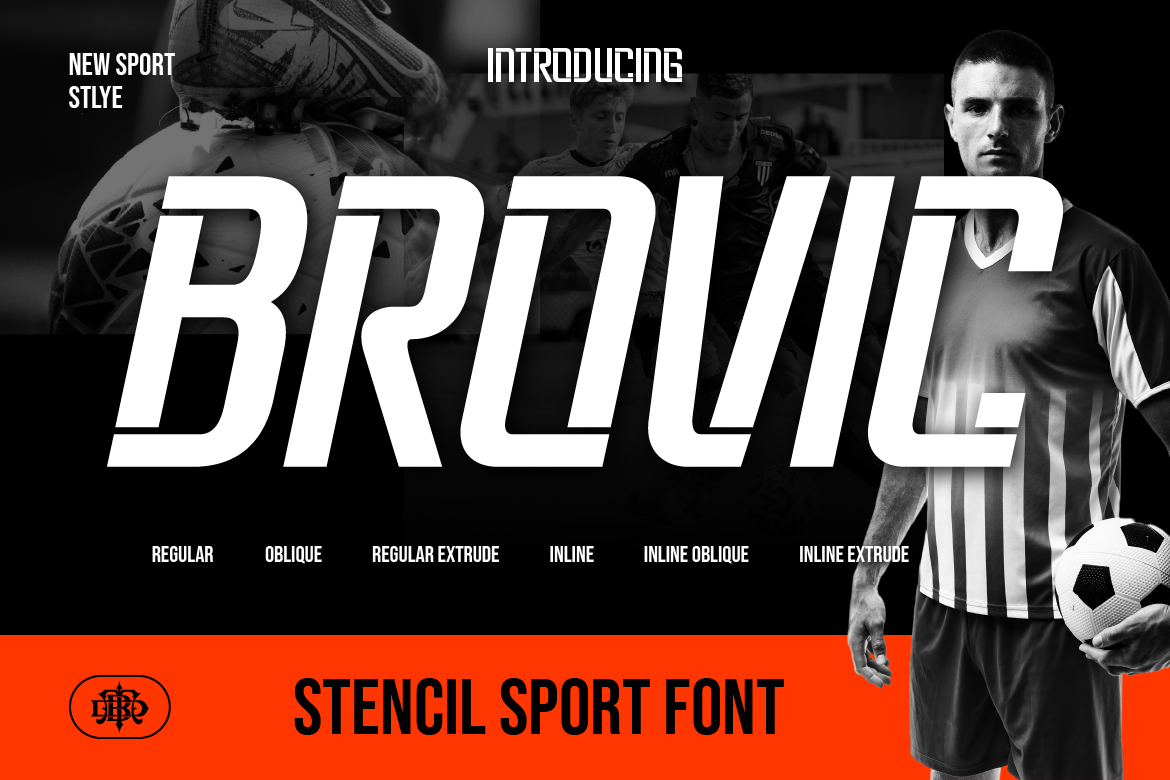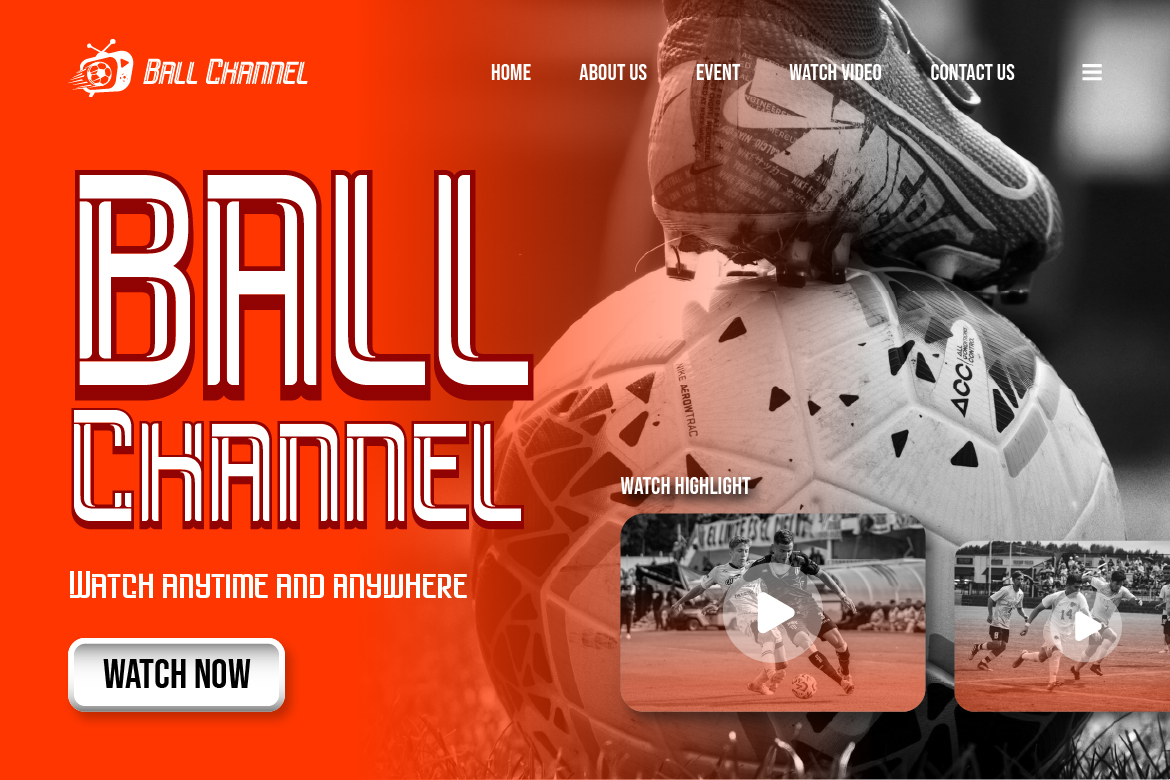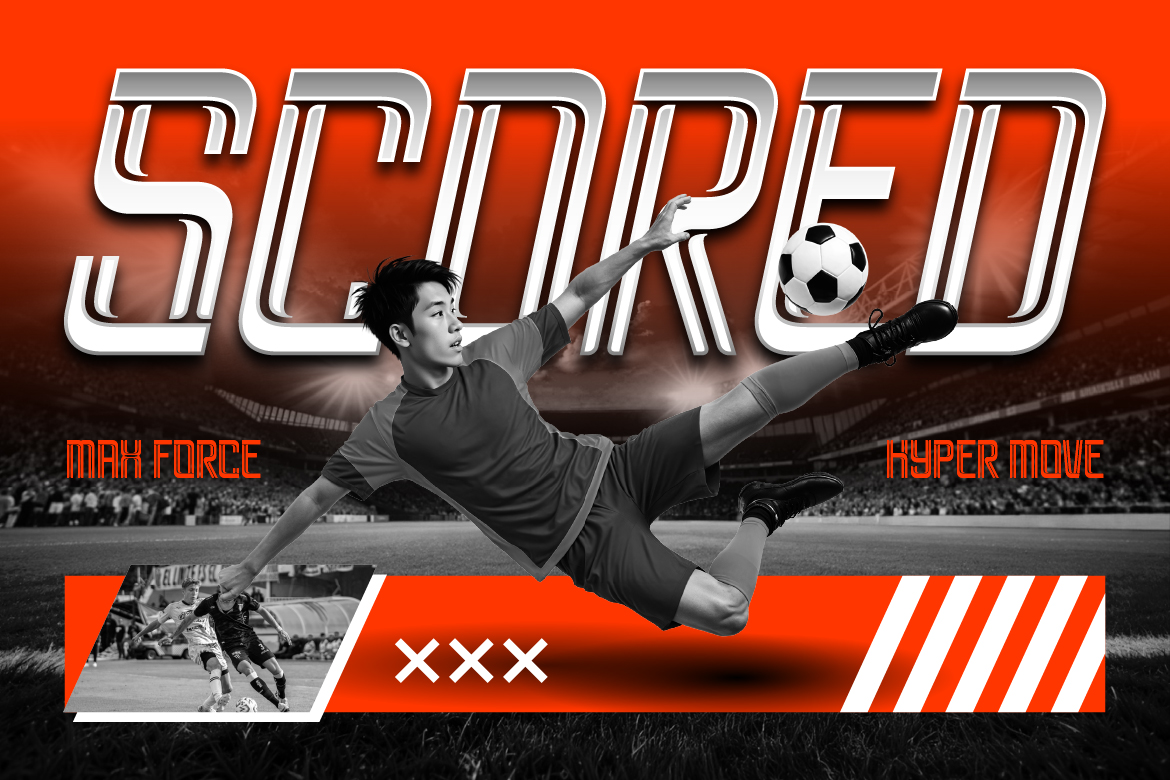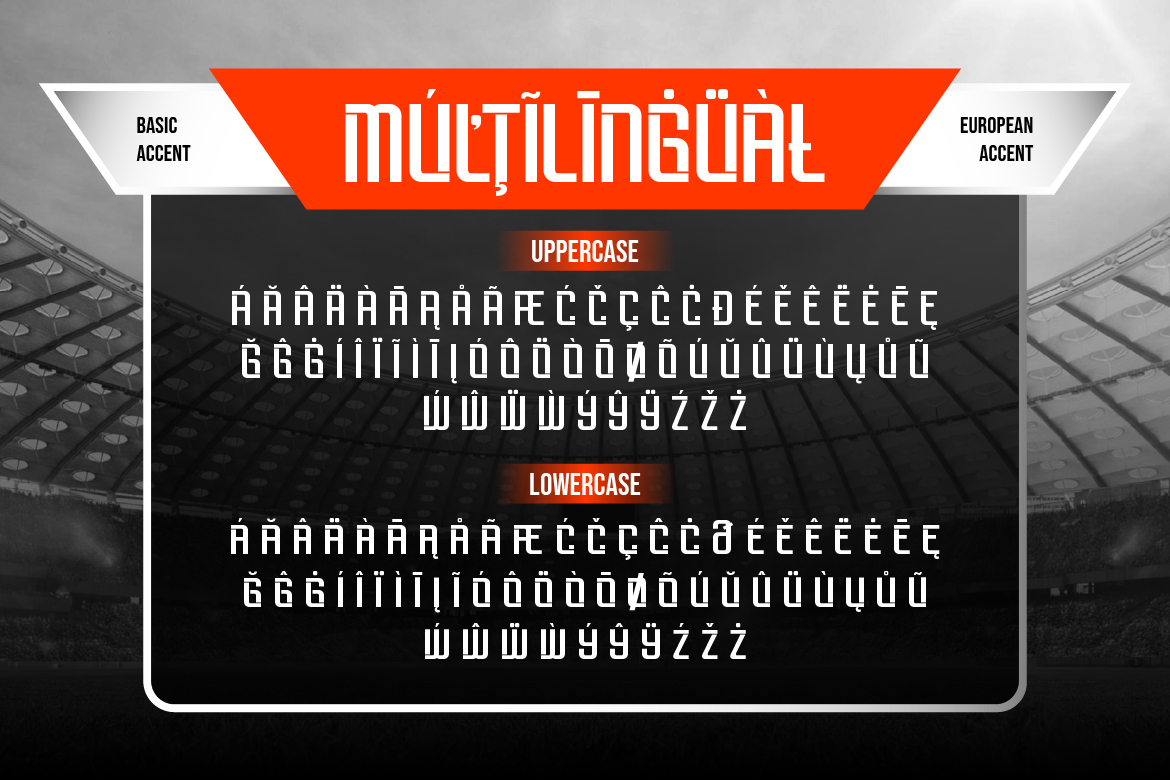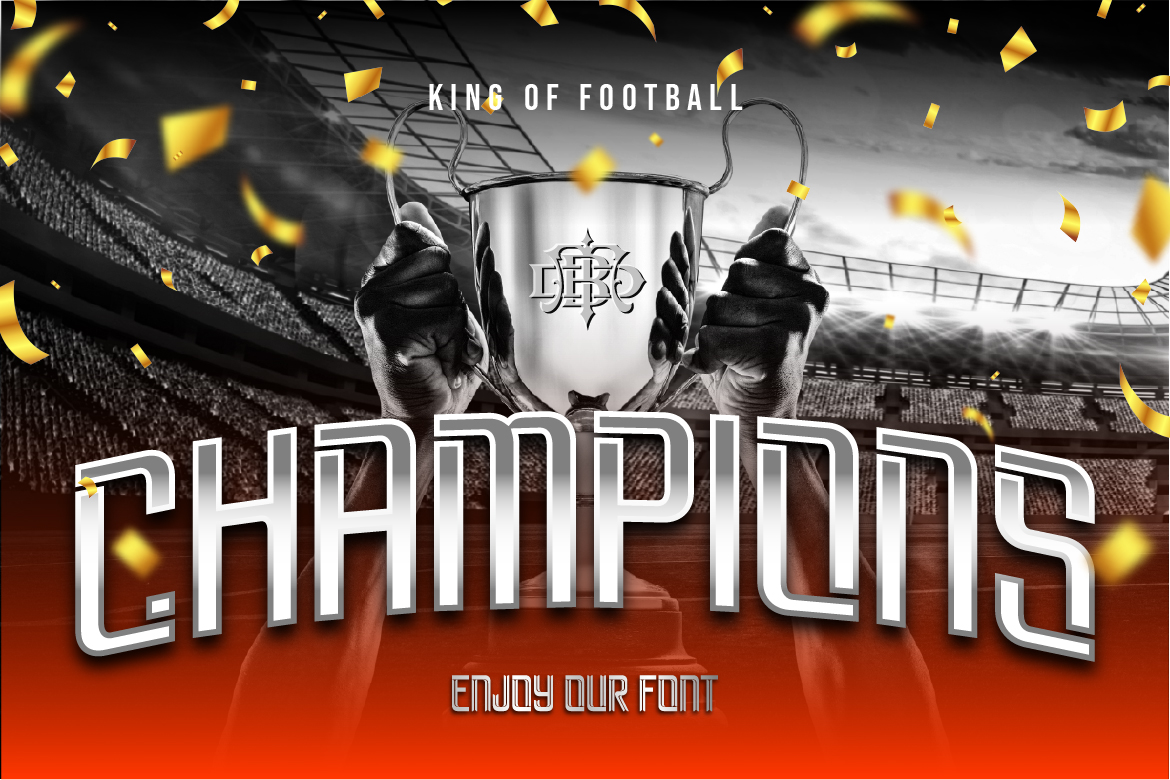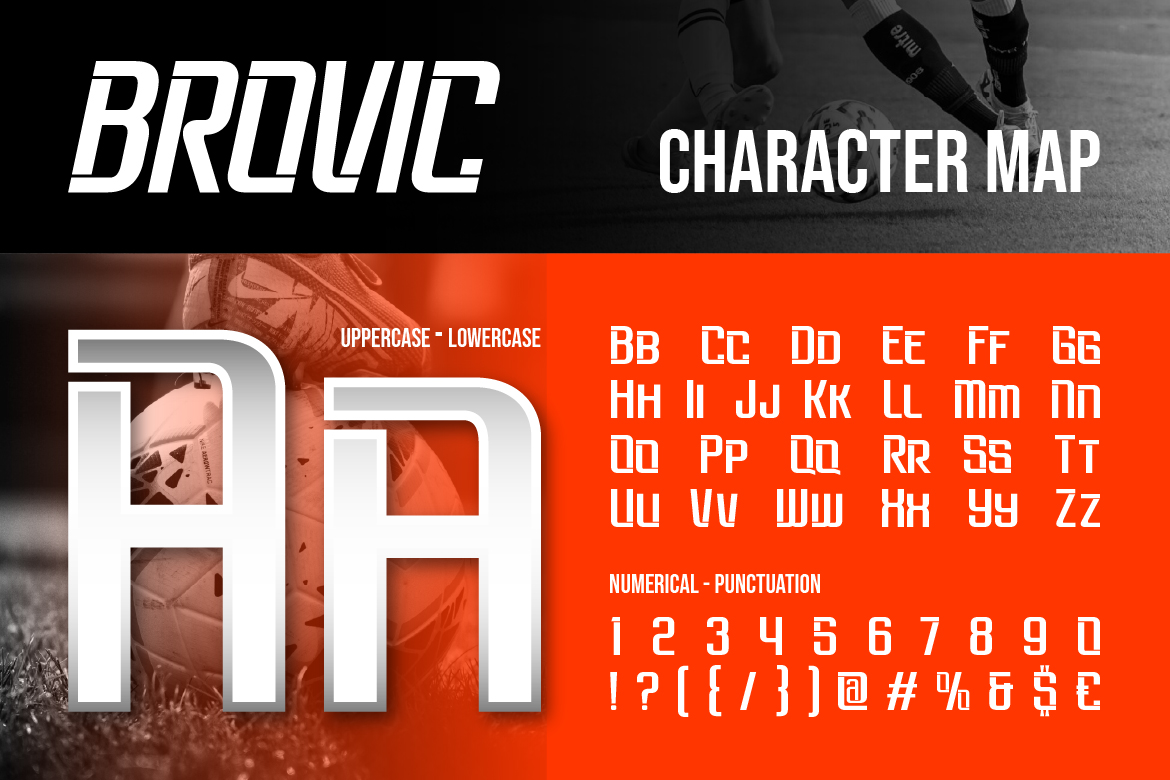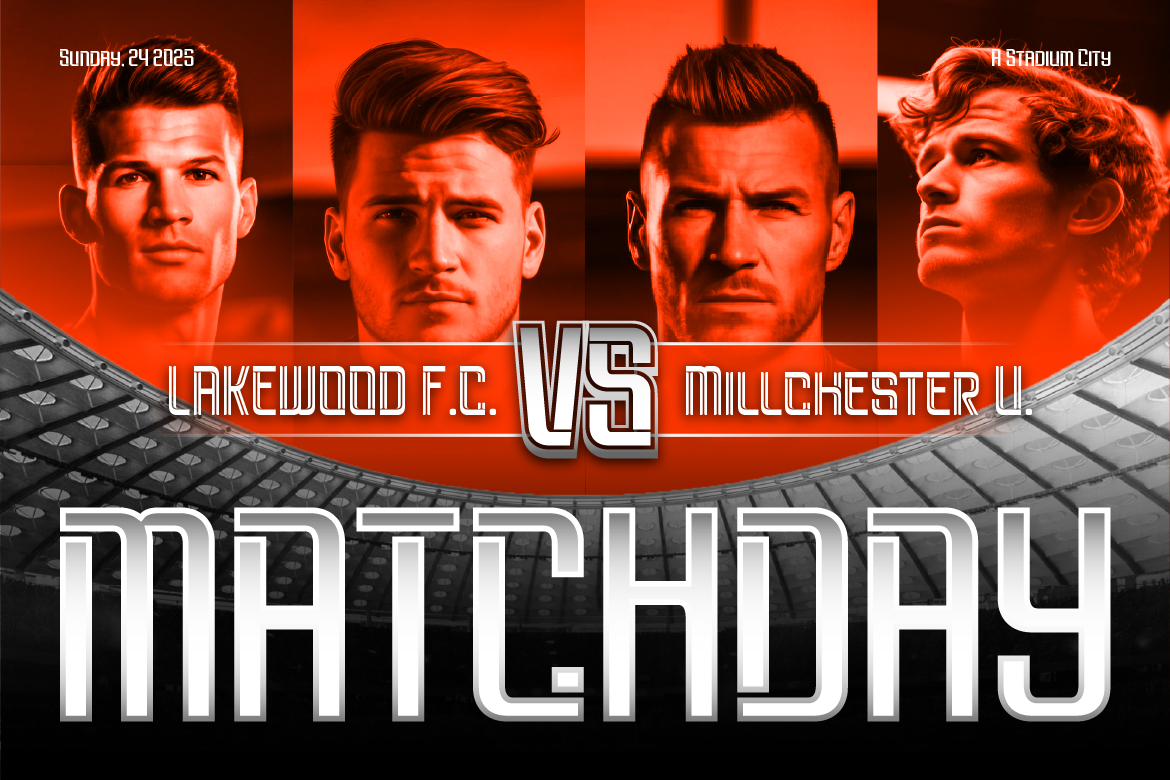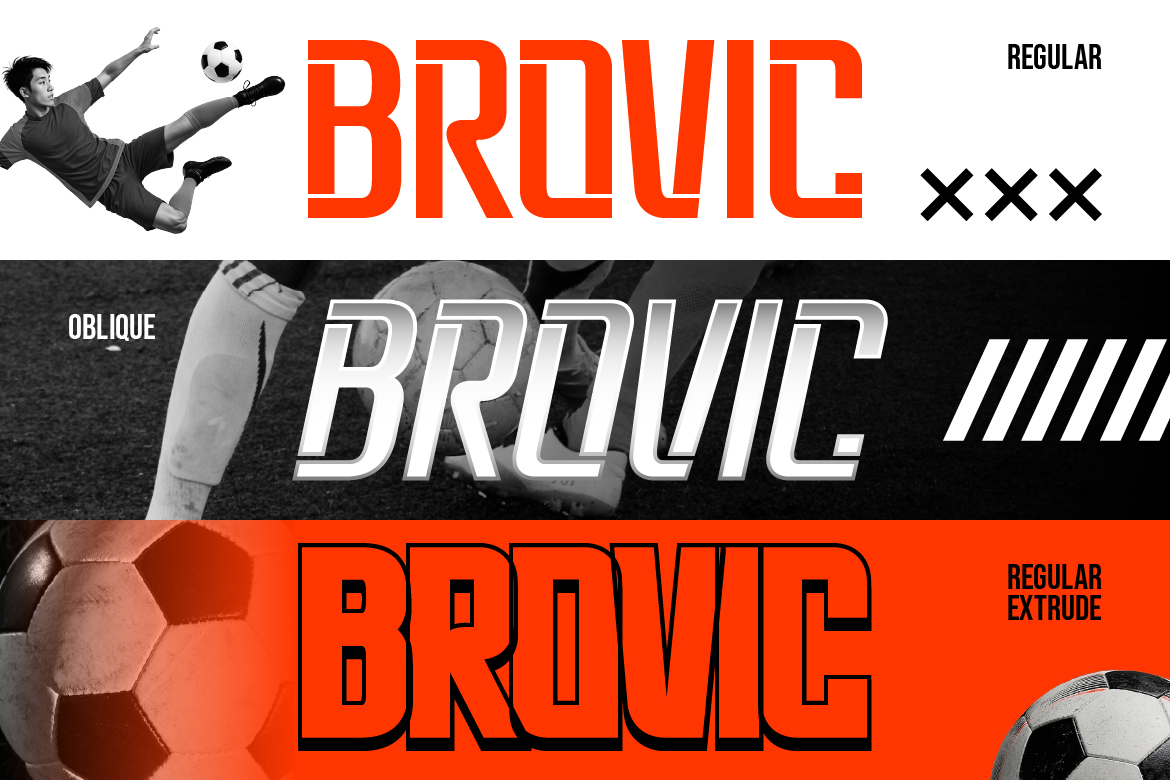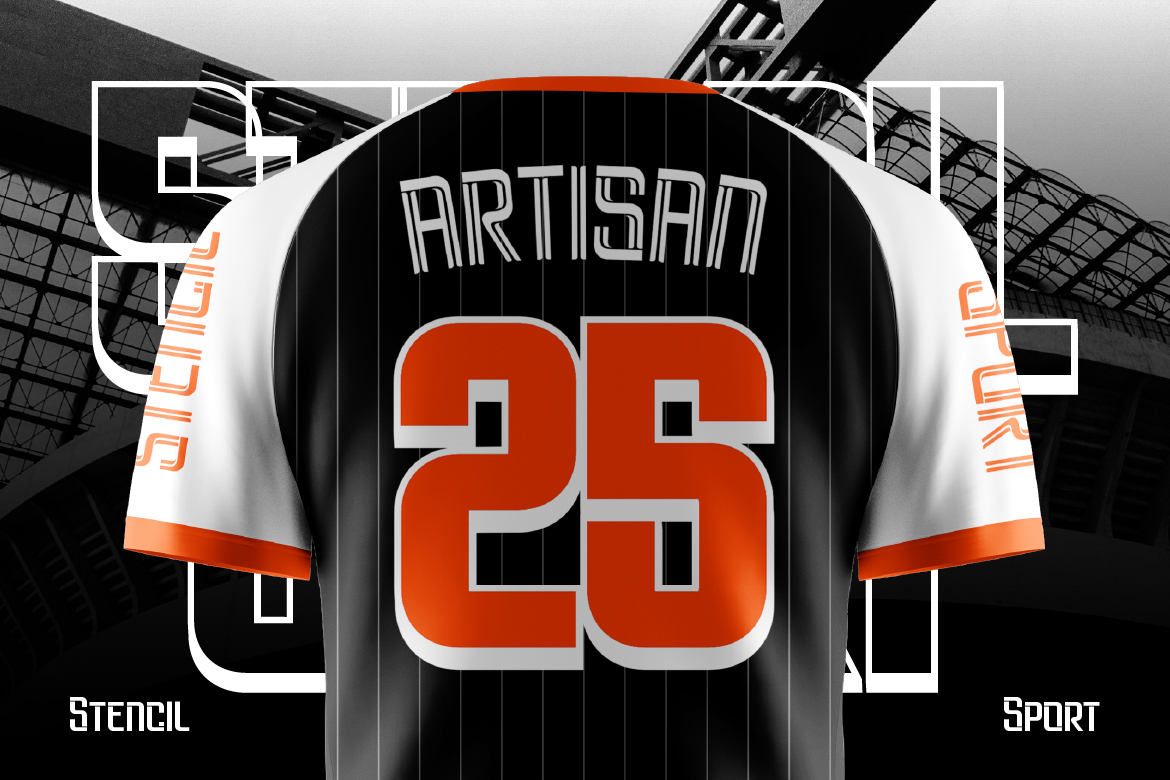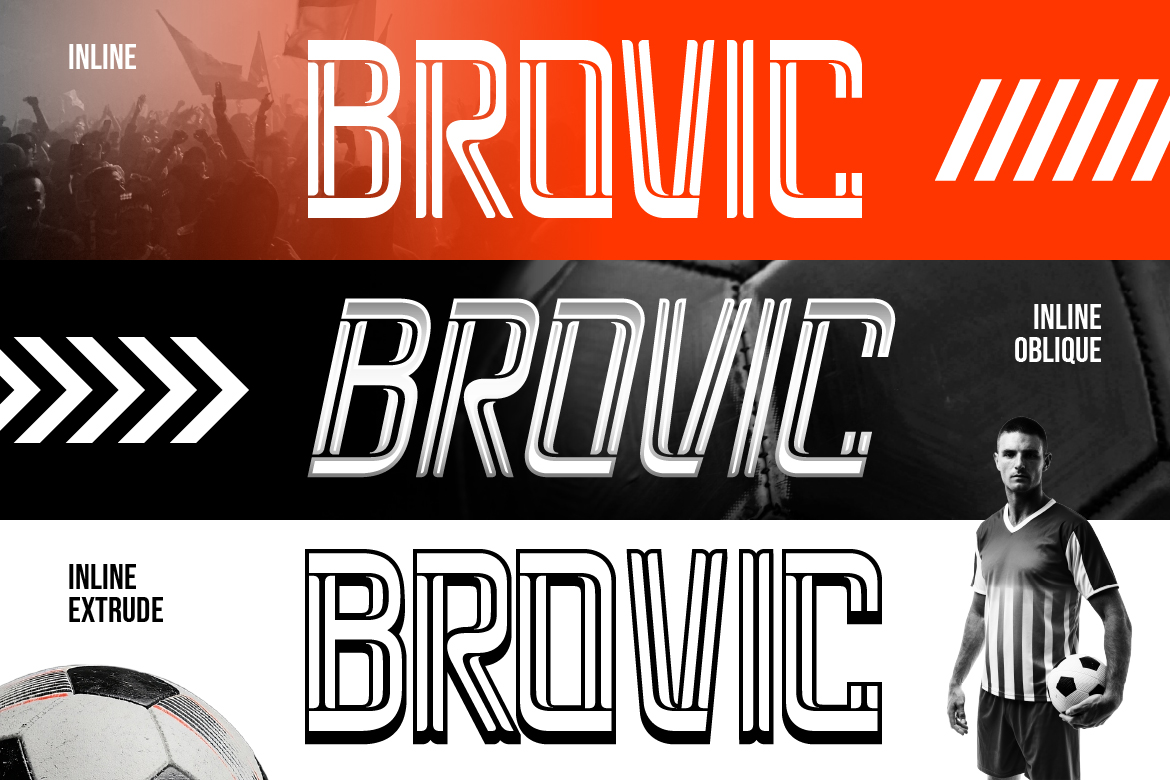
Meet Brovic, a font built for big moments and bold plays. Built with sharp lines, bold cuts, and a modern stencil style, Brovic brings that fast-paced football aesthetic straight into your design. Whether it’s jersey numbers, stadium banners, team posters, or esports branding this font delivers the intensity.
Brovic comes with multiple styles (Regular, Oblique, Inline, Extrude, and more), making it super flexible for striking headlines, sporty graphics, and futuristic branding. Want something loud? Use the extruded version. Want something sleek? Go with Inline. Mix and match — the vibe stays strong.
- A – Z set (Uppercase & Lowercase All Caps)